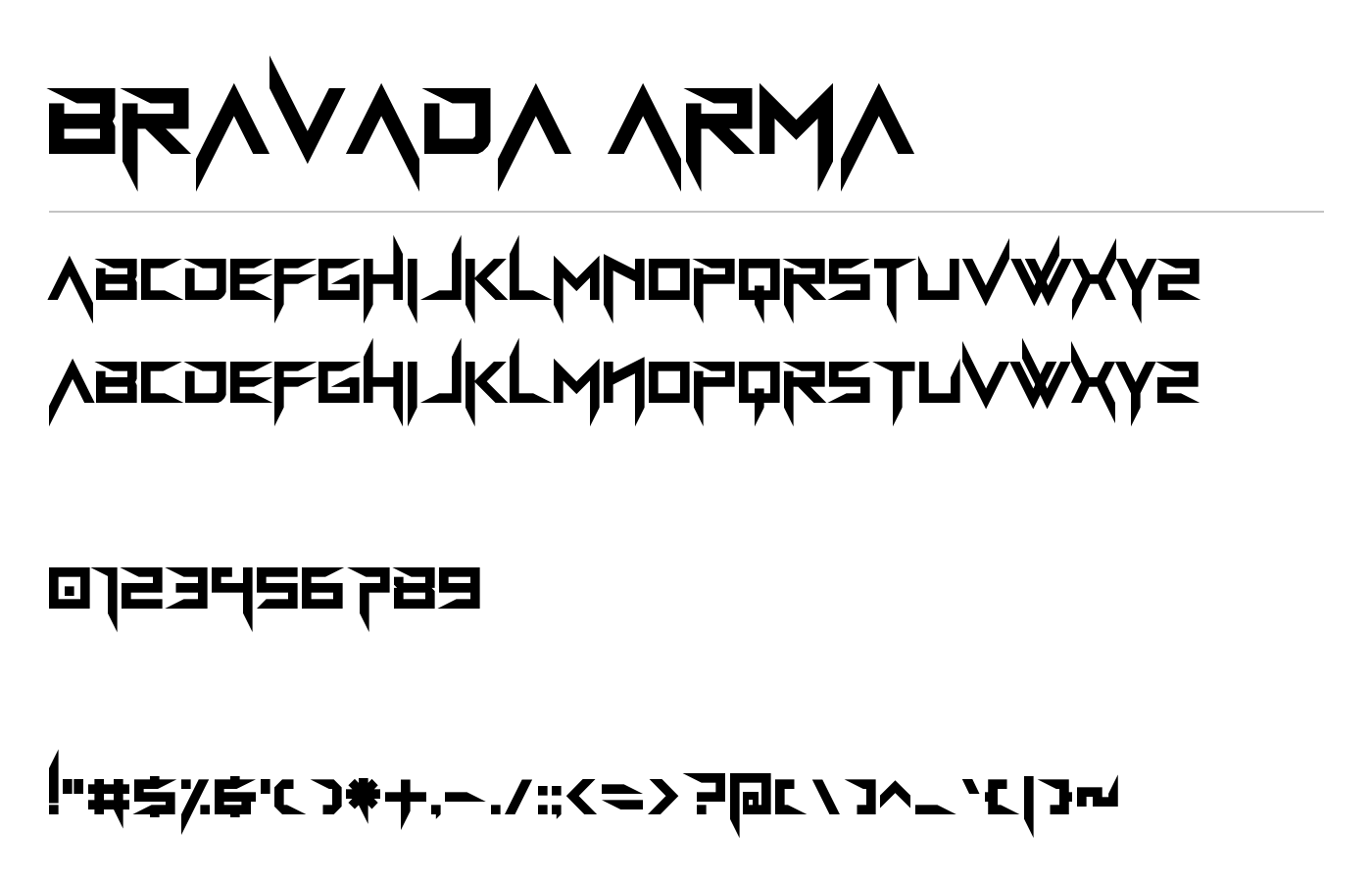
BravAda Arma is a striking, angular sans serif font with sharp, geometric edges and a bold presence. Its high contrast between thick and thin strokes, along with unusual letterforms that feature pointed terminals and aggressive cuts, give it a futuristic, edgy, and powerful personality. Ideal for logos, headlines, and creative projects seeking a modern, bold impact, this font excels in designs that want to convey strength and cutting-edge style.
BravAda Arma Font
About BravAda Arma Font
| Font family | BravAda Arma Font |
| Designer | Jéson Garnica |